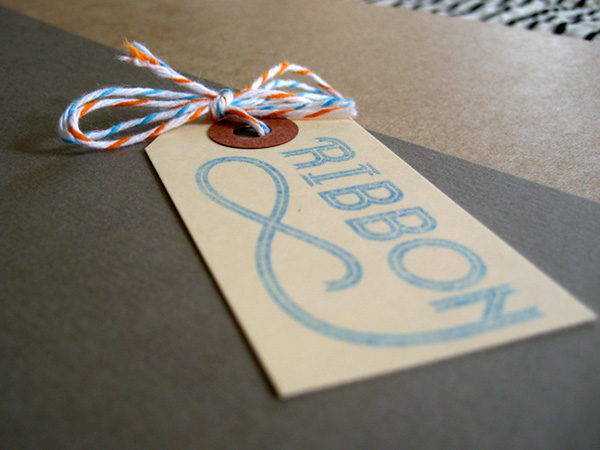
Ribbon
Font designed for the Lost Type Co-Op
First appearing as a Numeral Set, Ribbon is now a full display face, including Opentype features for an alternate alphabet and a border set.
The book includes guest designers Linda Eliasen, Mauricio Cremer, Chaun Osburn, Jim Leszczynski, Olivia Verdugo,Elysse Ricci, Andy Rementer, Namik Schwarz, Lachlan Heywood Riley Cran and Ryan Katrina. All showing off Ribbon in their own style.